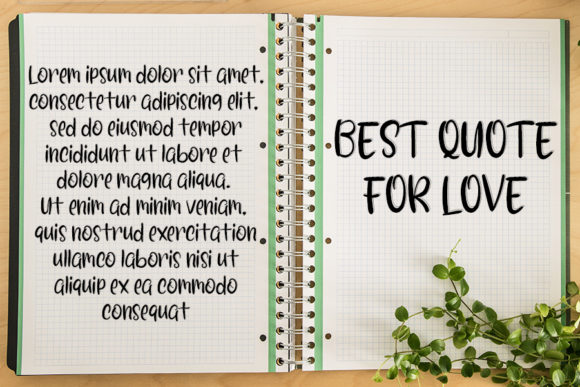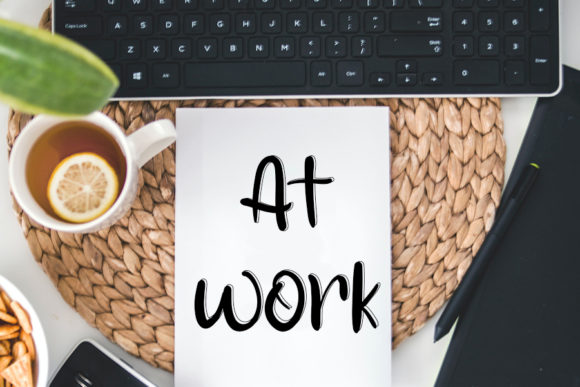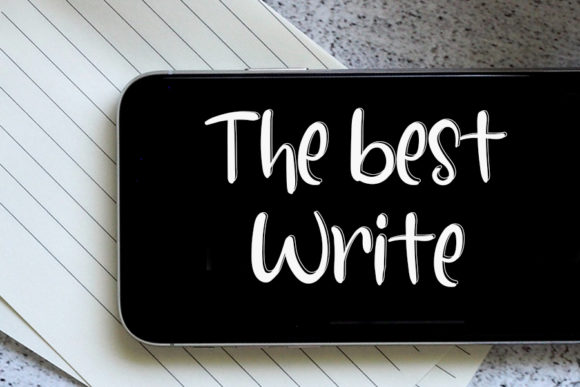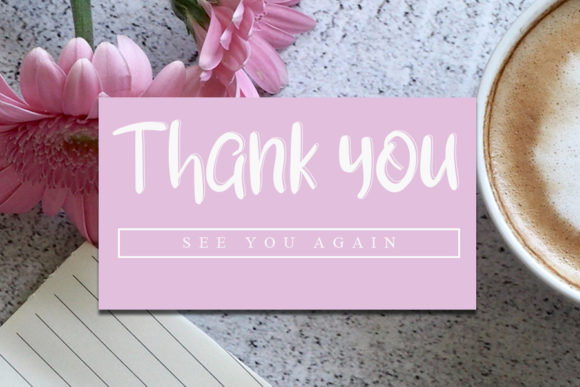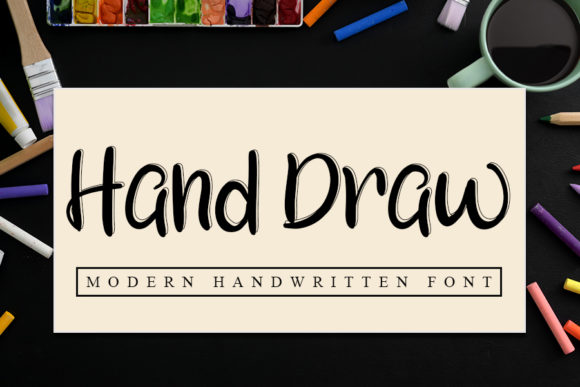
Introducing Hand Draw: The Sweet and Round Lettered Handwritten Font
Are you a designer or crafter looking for a unique and playful font to add a touch of personality to your creations? Look no further than Hand Draw, a sweet and round lettered handwritten font that’s sure to bring a smile to your audience’s faces. In this article, we’ll explore the features and benefits of Hand Draw, and show you how to make the most of this beautiful font in your designs.
The Characteristics of Hand Draw
Hand Draw is a handwritten font that’s characterized by its sweet and round letterforms. The font has a playful, informal feel that’s perfect for designs that need a personal touch. The letters are carefully crafted to have a uniform thickness, giving the font a smooth and cohesive look. The font is also highly legible, making it suitable for use in a wide range of applications, from titles and headings to body text.
Adding a Joyful Touch to Your Designs
One of the standout features of Hand Draw is its ability to add an incredibly joyful touch to your designs. The font’s playful and whimsical feel makes it perfect for designs that need to evoke a sense of happiness and friendliness. Whether you’re creating a logo, a poster, or a social media graphic, Hand Draw is sure to bring a smile to your audience’s faces. The font is also highly versatile, and can be used in a wide range of contexts, from children’s designs to more mature and sophisticated applications.
Using Hand Draw in Your Designs
So how can you make the most of Hand Draw in your designs? Here are a few tips:
- Pair it with bold colors: Hand Draw looks amazing when paired with bold, bright colors. Try using the font in combination with a vibrant color scheme to create a design that’s sure to grab attention.
- Experiment with textures: Adding textures to your design can help to give it a more organic, handmade feel that complements Hand Draw perfectly. Try experimenting with different textures, such as paper or fabric, to add depth and interest to your design.
- Use it in combination with other fonts: Hand Draw can be used on its own or in combination with other fonts. Try pairing it with a bold sans-serif font for a striking contrast, or with a more ornate script font for a more elegant look.
The Benefits of Using Hand Draw
So why should you choose Hand Draw for your designs? Here are just a few benefits of using this beautiful font:
- Unique and eye-catching: Hand Draw is a unique and eye-catching font that’s sure to make your designs stand out from the crowd.
- Highly legible: The font is highly legible, making it suitable for use in a wide range of applications, from titles and headings to body text.
- Versatile: Hand Draw is highly versatile, and can be used in a wide range of contexts, from children’s designs to more mature and sophisticated applications.
In conclusion, Hand Draw is a sweet and round lettered handwritten font that’s perfect for designers and crafters looking to add a touch of personality to their creations. With its playful and whimsical feel, highly legible letterforms, and versatility, Hand Draw is sure to become a go-to font in your design arsenal. So why not give it a try and see how it can elevate your designs to the next level?